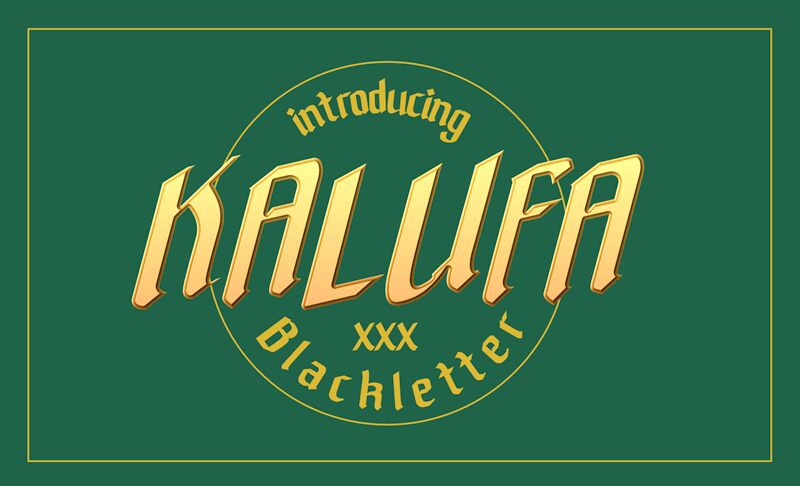
Kalufa Bold Italic, crafted by Mofr24, is a striking blackletter font that beautifully marries vintage charm with contemporary flair. Its bold form and intricate details create a captivating aesthetic that commands attention and elevates any design project. This font thrives in environments where a sense of elegance and sophistication is paramount.
Ideal for logotypes, titles, headlines, and branding efforts, Kalufa makes a powerful statement while remaining distinctive. Whether you're crafting promotional materials for movies or designing art crafts, this font brings an undeniable gravitas to the table. Embrace the timeless quality of Kalufa Bold Italic to enhance your creative expressions and stand out in today's design landscape. Unleash your creativity with this extraordinary typographic choice!